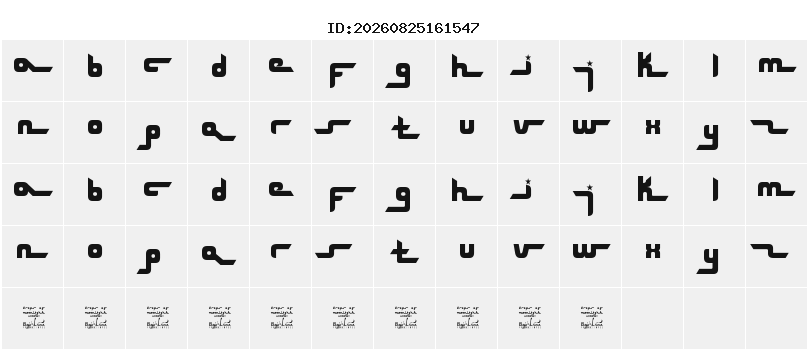
• Font Name: SL Drops Of Moonlight
• Full Font Name: SL Drops Of Moonlight
About SL Drops Of Moonlight.ttf
SL Drops Of Moonlight.ttf is a modern, elegant sans-serif font designed for ultimate readability and visual harmony. Perfect for branding, headlines, web design, and print materials.